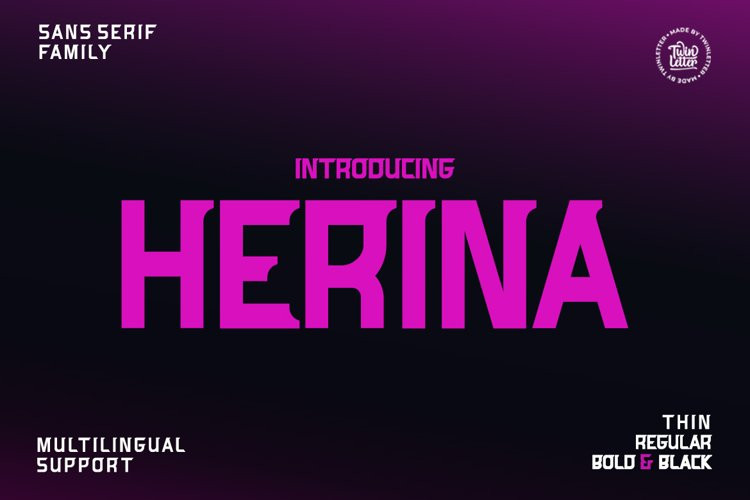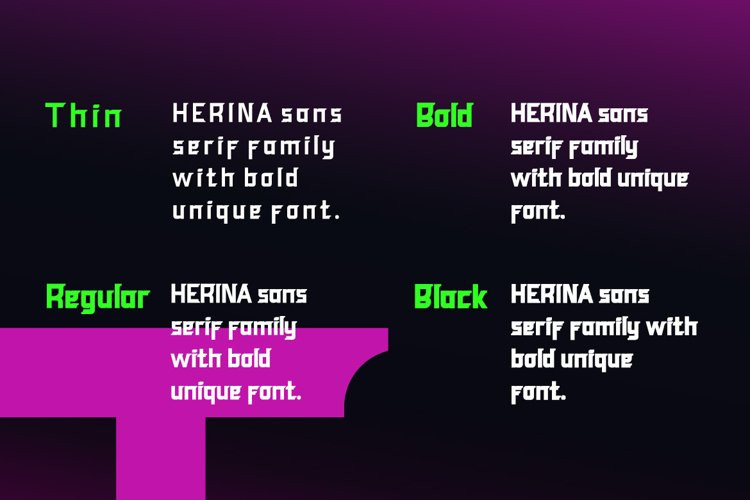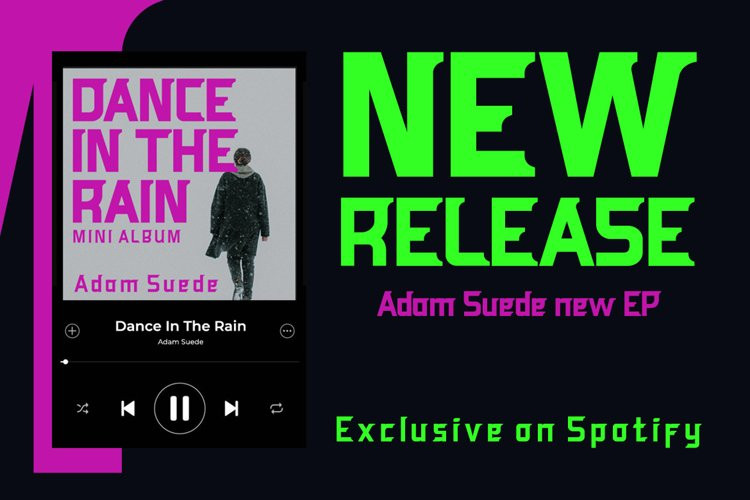
Herina Font
Herina FontHerina is a new sanserif font with a strong and elegant character. By using this font, your project will have a thick and strong impression, with a strong, beautiful, and appealing appearance that will set your project apart from the competition. Make your promotional materials stand out with this font. this.
of course, your various design projects will be perfect and extraordinary if you use this font because this font is equipped with a font family, both for titles and subtitles and sentence text, start using our fonts for your extraordinary projects.